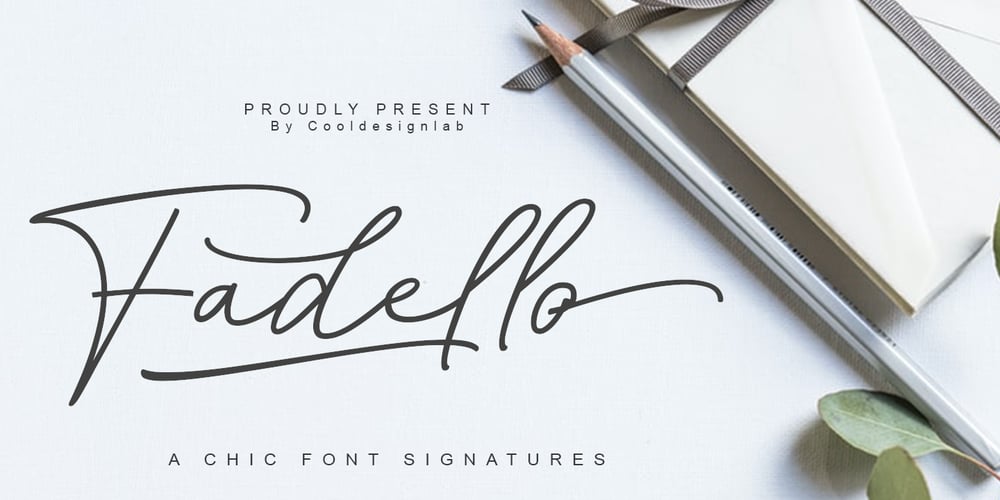
Fadello
Fadello font
Fadello Font Family was designed by Kurniadi Saputra and published by Cooldesignlab. Fadello contains 1 styles and family package options. Fadello is a handwritten signature script with a natural & stylish flow, perfectly suited to signatures, stationery, logos, typography quotes, magazine or book covers, website headers, clothing, branding, packaging design and more. A handwritten script font containing upper and lowercase characters, numerals and a large range of punctuation.Fadello is a must-have signature script that has a diverse set of alternates that will surely be used many times over in various projects in the future. This collection fills a void and separates itself from other scripts available.If you have any questions, don’t hesitate to contact me by Gmail: Cooldesignlab@gmail.com.